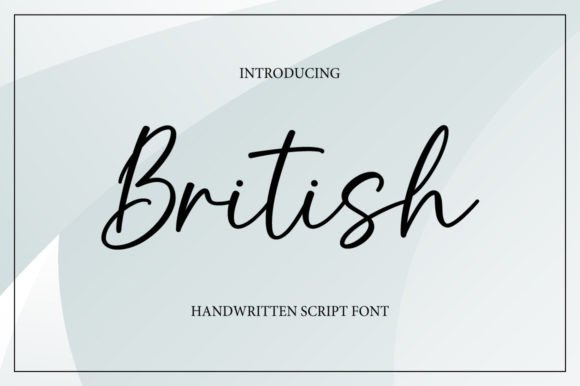
The Charm of British Font: A Designer’s Delight
I’ll never forget the time I was working on a branding project for a boutique hotel, and I was struggling to find the perfect font to capture the essence of their luxurious yet cozy vibe. That’s when I stumbled upon the British font, and it instantly became my go-to choice. In this article, I’ll share with you why I fell in love with this lovely and timeless handwritten font, its features, and how to make the most of it in your designs.
• ✅ The British font is a beautifully crafted handwritten font that exudes elegance and sophistication.
• ✅ It’s perfect for creating eye-catching logos, branding, and quotes that require a personal touch.
• ✅ The font is PUA encoded, which means you can access all the glyphs and swashes with ease!
• ✅ It’s incredibly versatile and can be used for a wide range of design projects, from stationery to digital media.
• ⚠️ Some users might find the font a bit too ornate for certain design projects, such as minimalist branding or modern digital media.
• ⚠️ The font’s intricate details might not render well at very small sizes or on low-resolution screens.
The Backstory of British Font
The British font was designed by a talented type designer who wanted to create a font that captured the essence of traditional British elegance and sophistication. Inspired by classic calligraphy and handwriting, the font features intricate details and swashes that add a touch of luxury to any design.
Q: What is the British font, and what is it used for?
A: The British font is a lovely and timeless handwritten font that’s perfect for creating eye-catching logos, branding, and quotes that require a personal touch.
Q: Is the British font PUA encoded?
A: Yes, the British font is PUA encoded, which means you can access all the glyphs and swashes with ease!